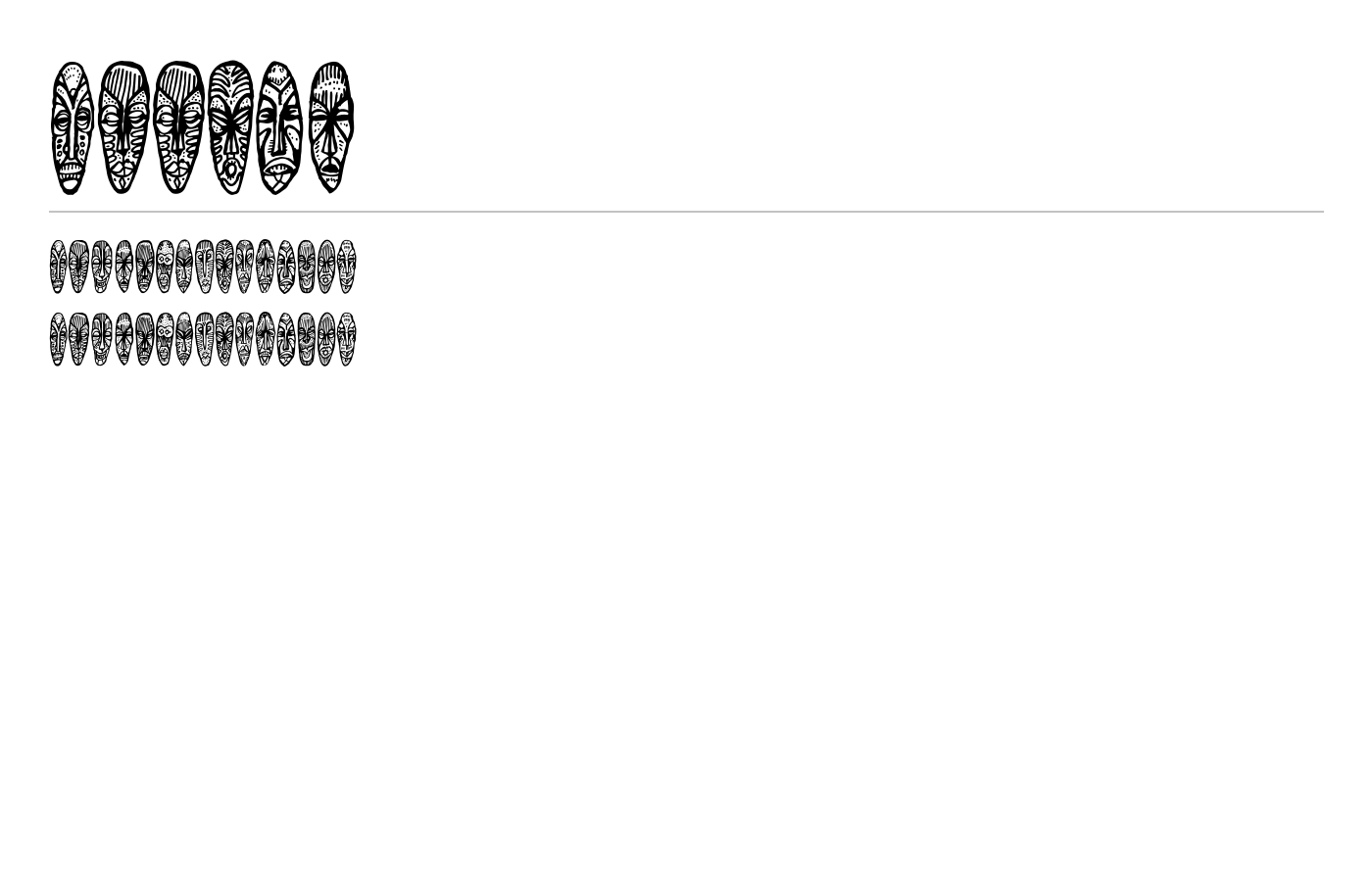
Abbild Font is a highly decorative, artistic typeface inspired by tribal mask motifs, featuring detailed, intricate shapes that resemble hand-drawn patterns. This unique font blends visual storytelling with bold, ornamental design, making it ideal for creative projects seeking a strong cultural or ethnic vibe, such as posters, branding, and packaging where eye-catching, expressive style is key. Its complexity works best in larger sizes or display uses, adding distinctiveness and personality to any design.
Abbild Font
About Abbild Font
| Font family | Abbild Font |